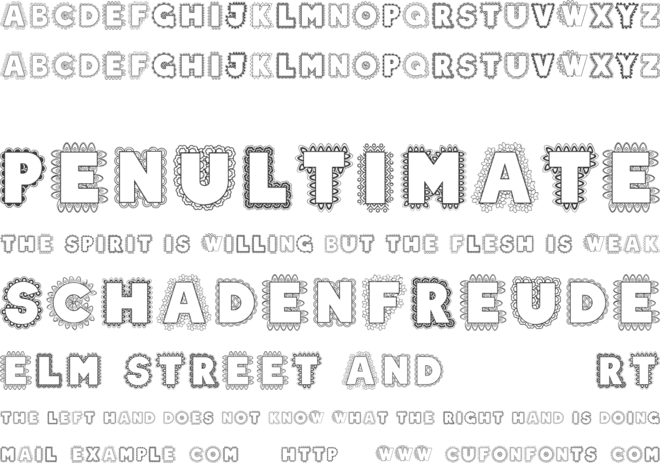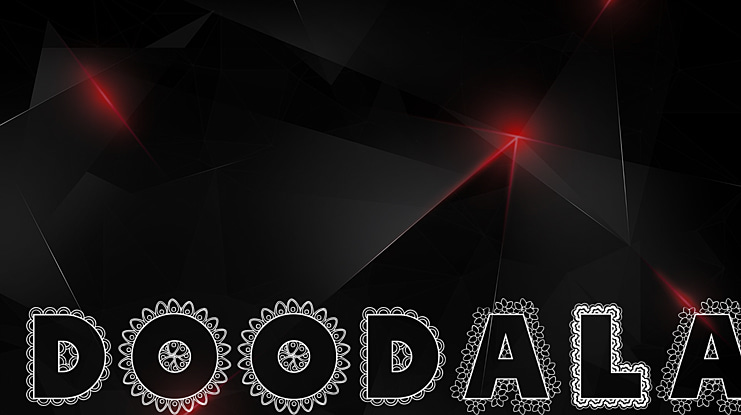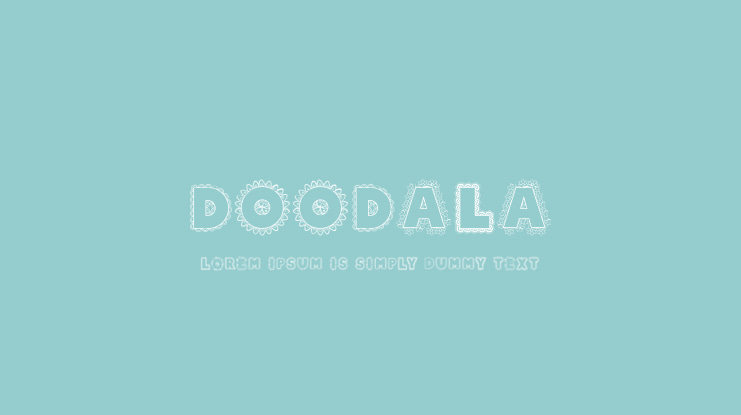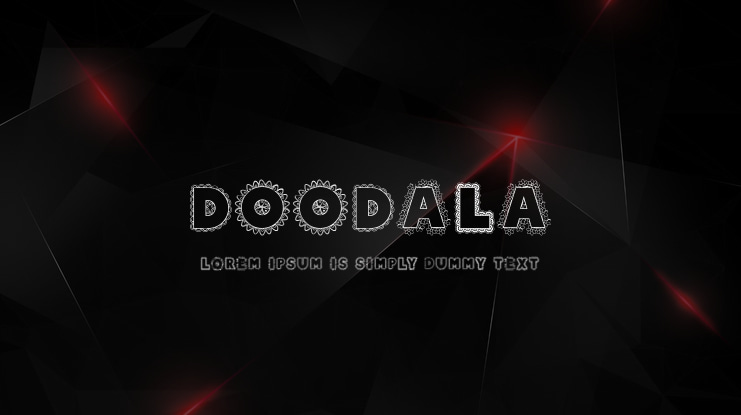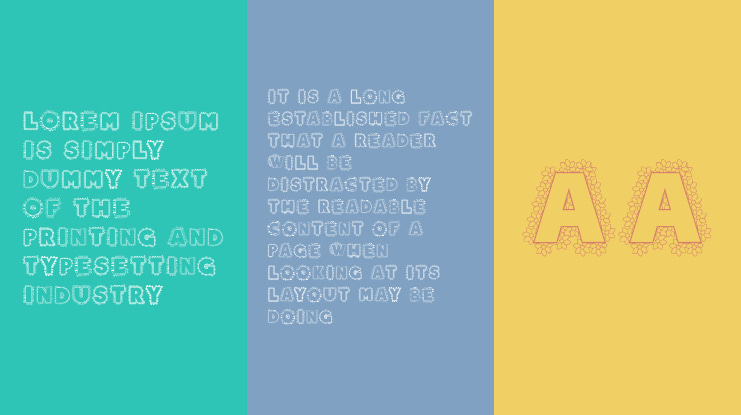
Doodala Font
Introducing Doodala Bordered! A super fun, hand-drawn Mandala font. Great for creating intricate floral monogram designs quickly and easily.
Also fun to print out and color!
Doodala Bordered font